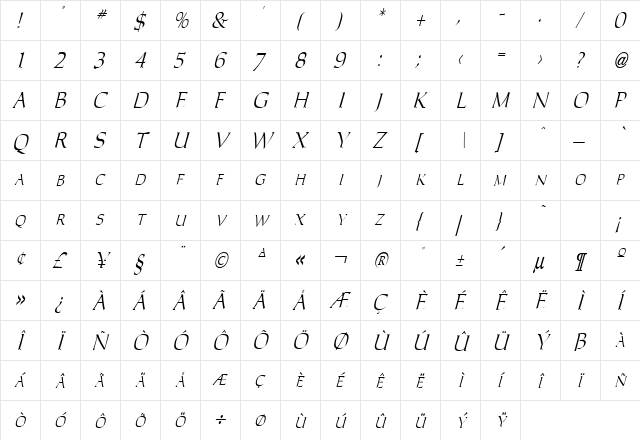
Jetison Normal Font Preview
Jetison Normal
Jetison Normal Font Details
Design Context for Jetison Typeface
Jetison takes a measured approach to typography — its balanced proportions and neutral character make it a reliable workhorse for both digital and print work.